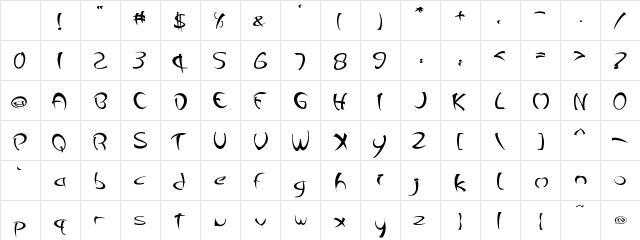
Complete Changstein Regular glyph index. Displaying only characters natively supported by Changstein Regular font.
Changstein is a composed and adaptable typeface that performs quietly and consistently across a wide range of design contexts.